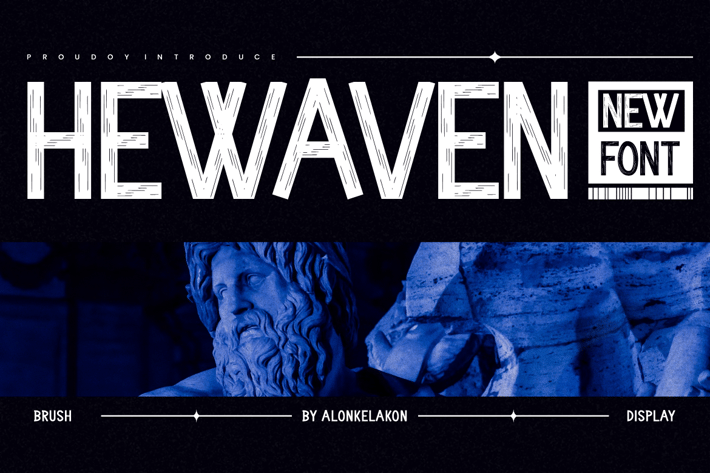
Hewaven - Hand Drawn Font
alonkelakon
Hewaven Font is unique . Ready to use for your design like labeling, movie sceen, poster, movie title, gigs, album covers, logos, and much more.